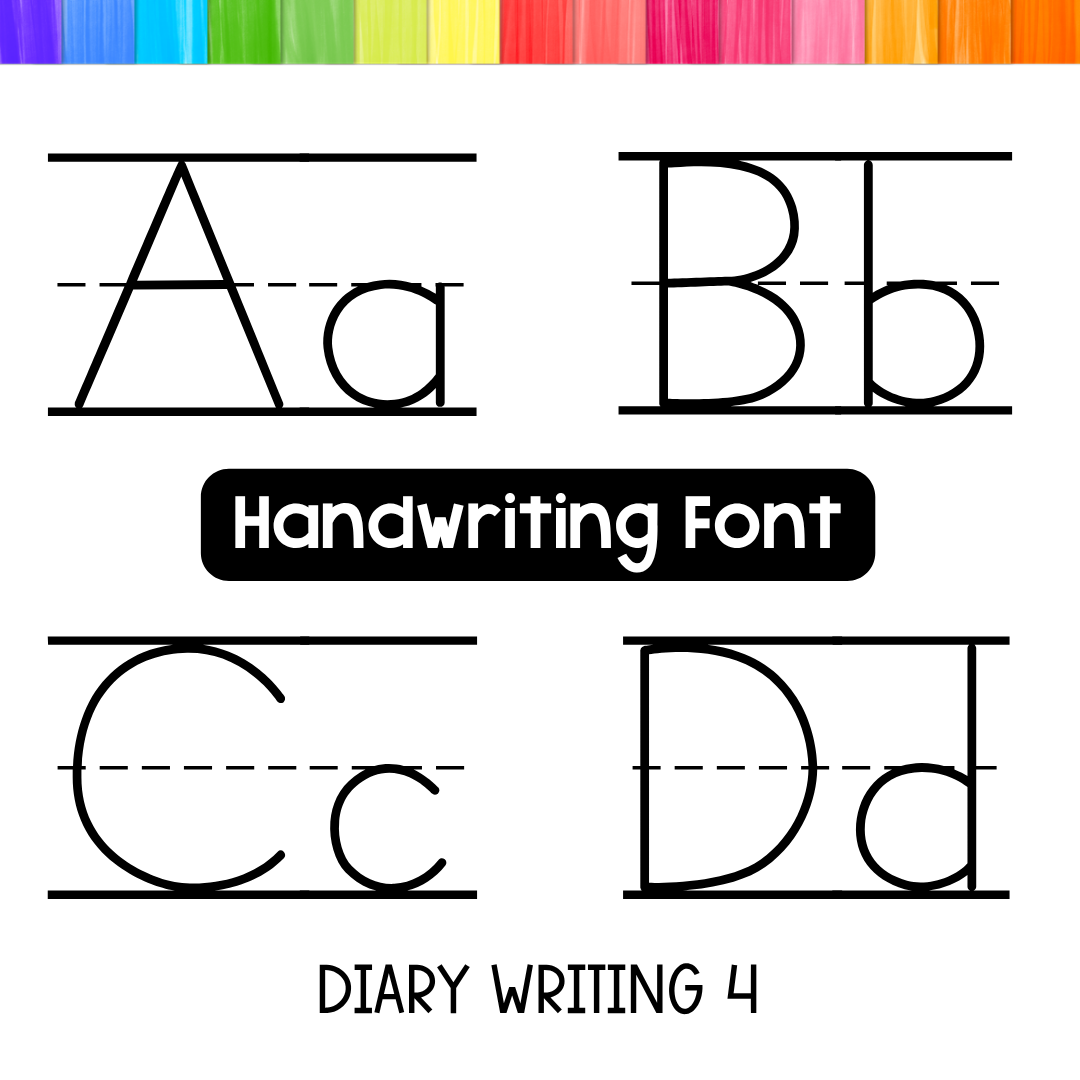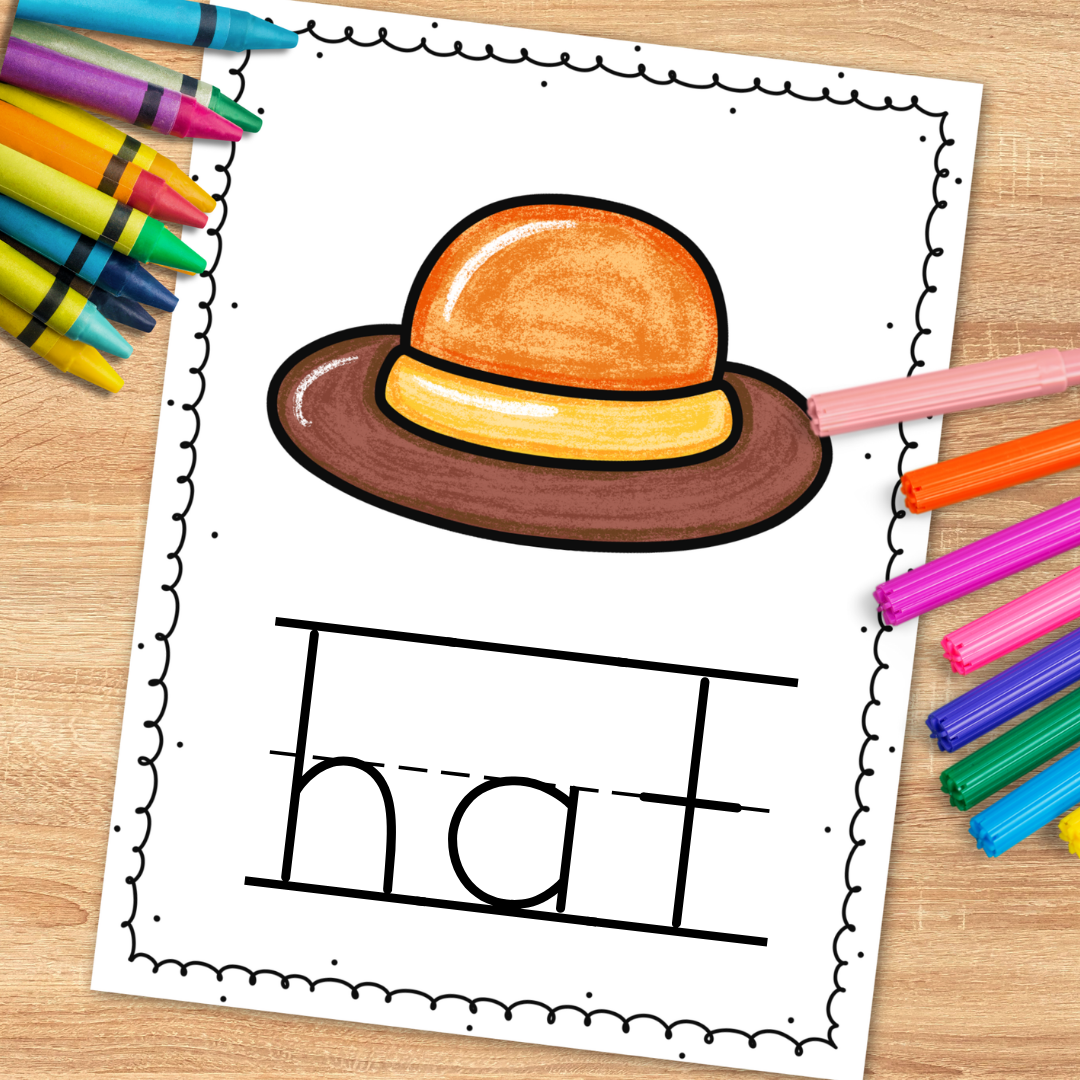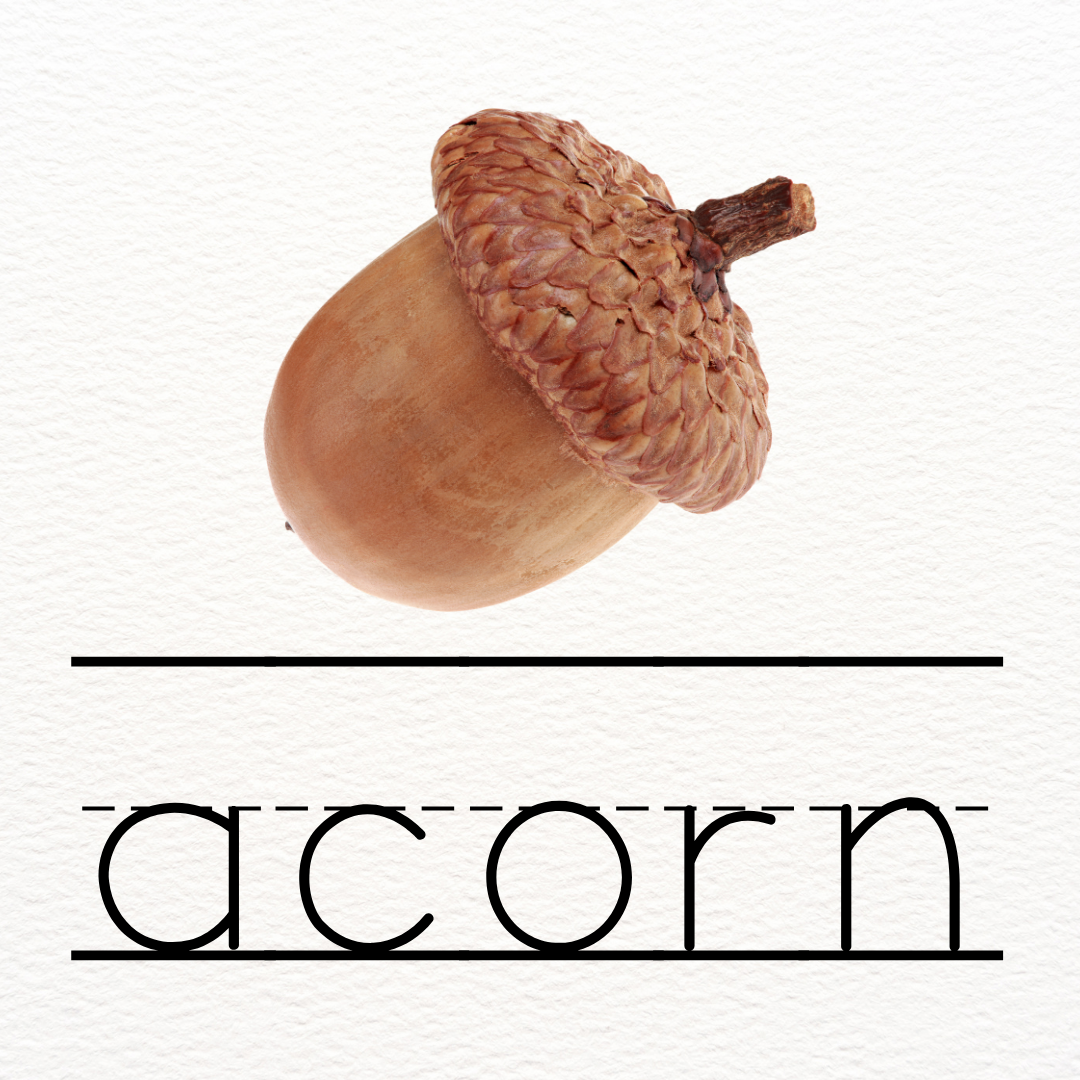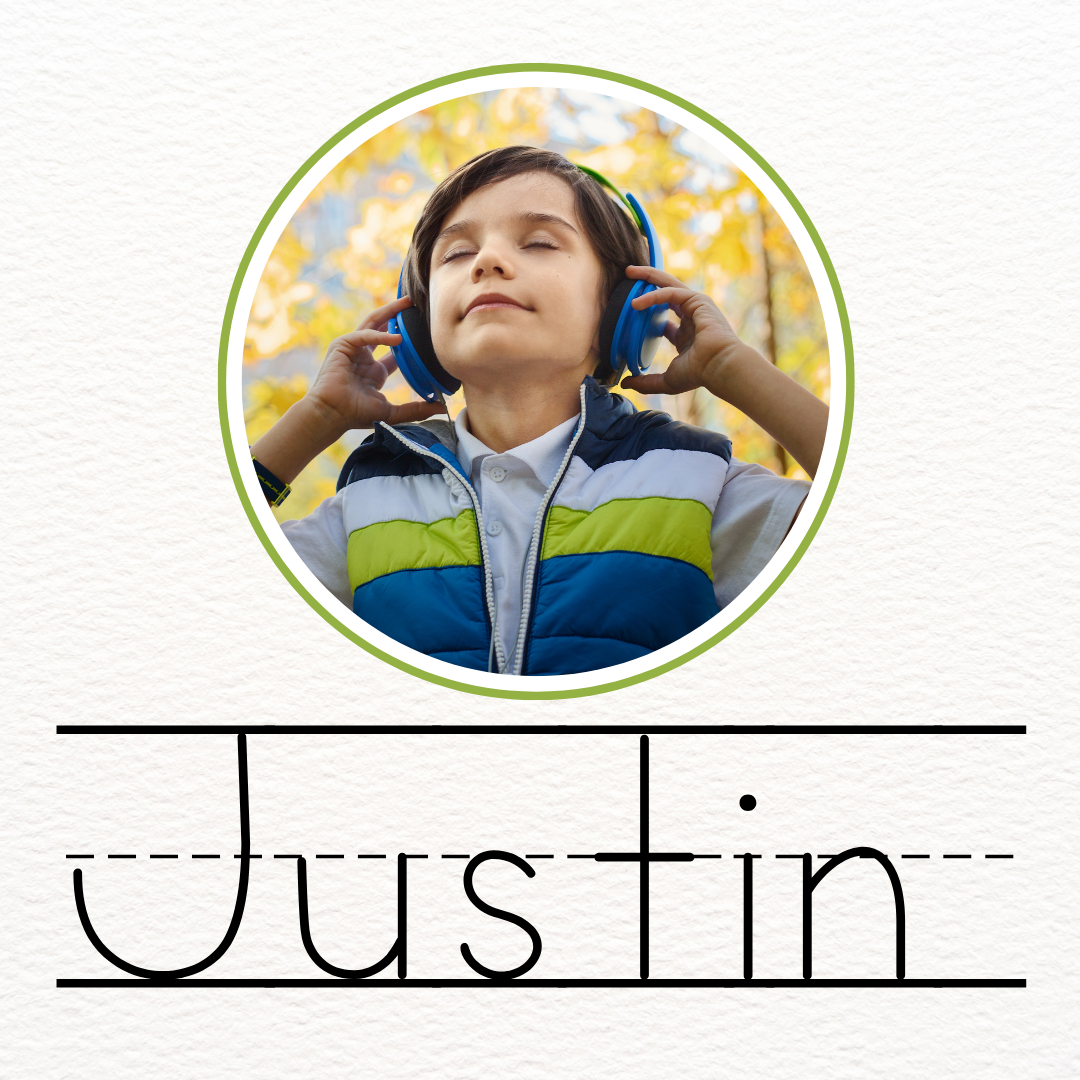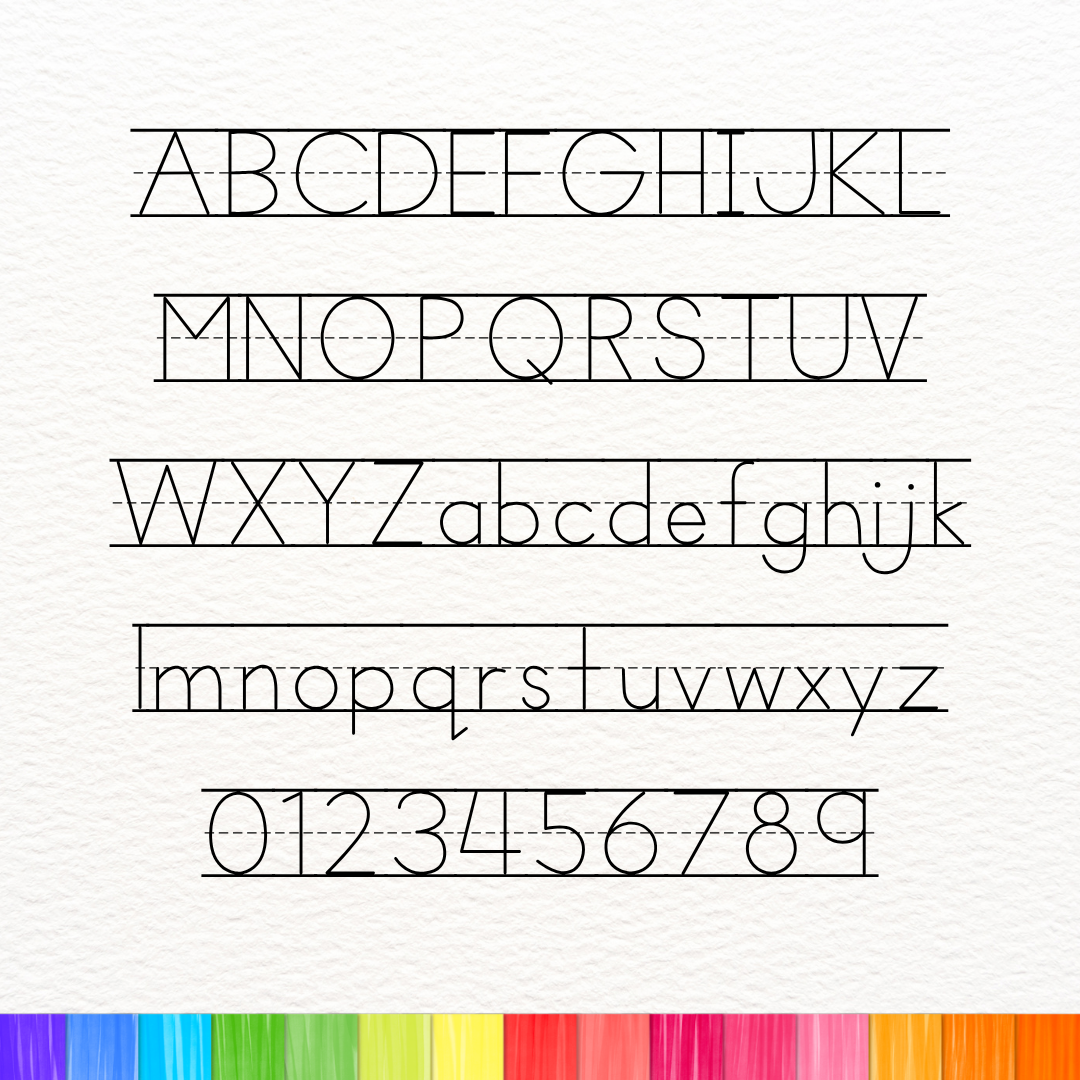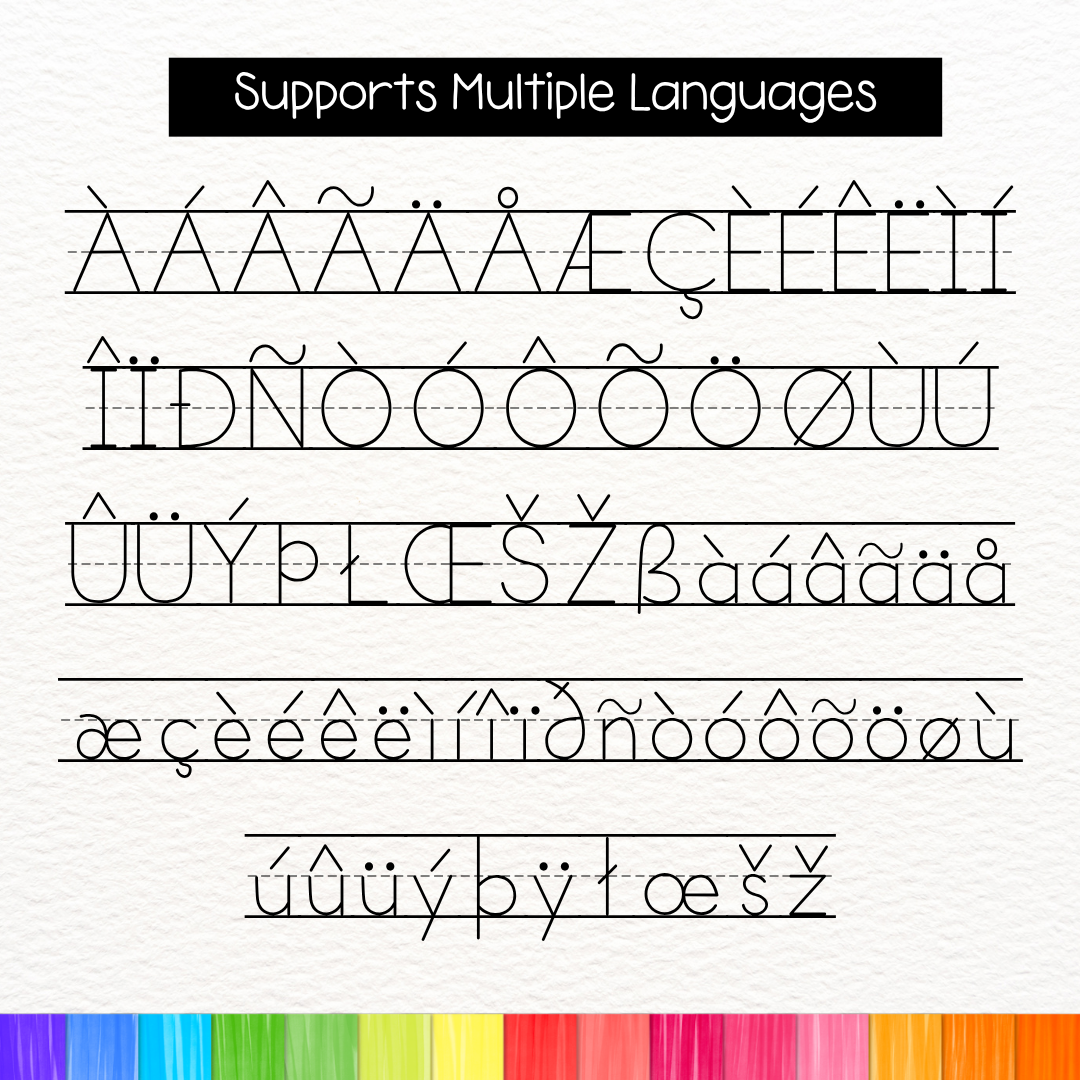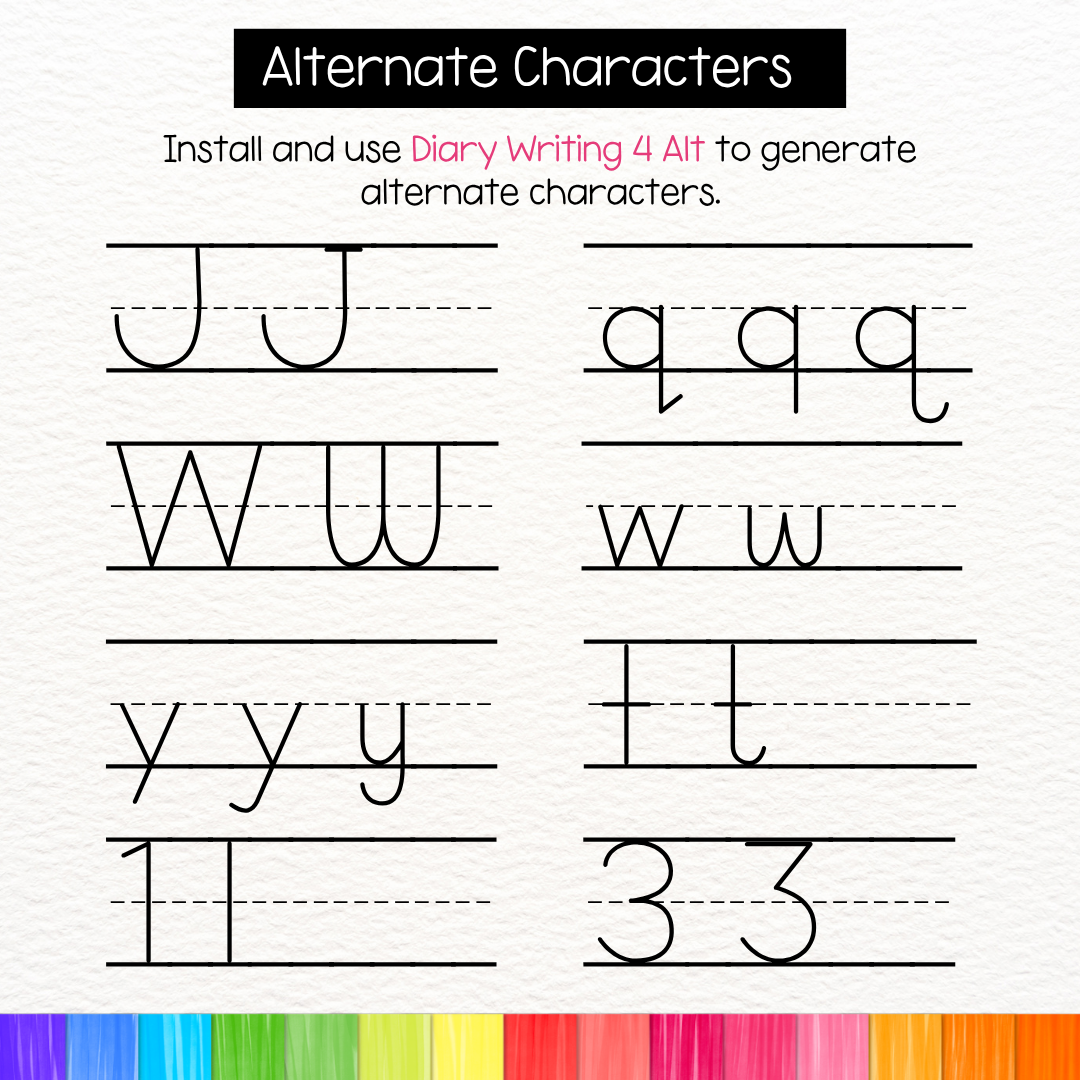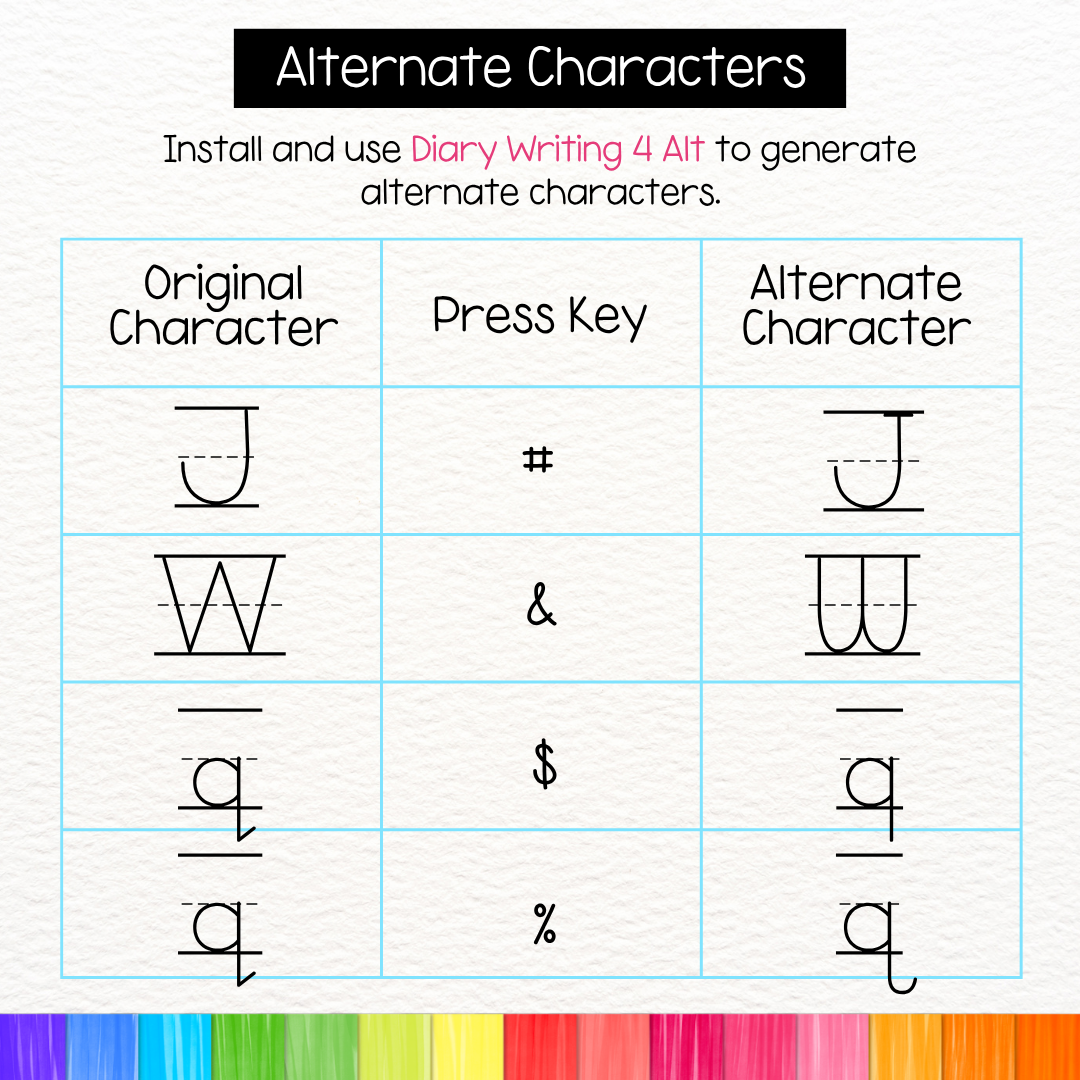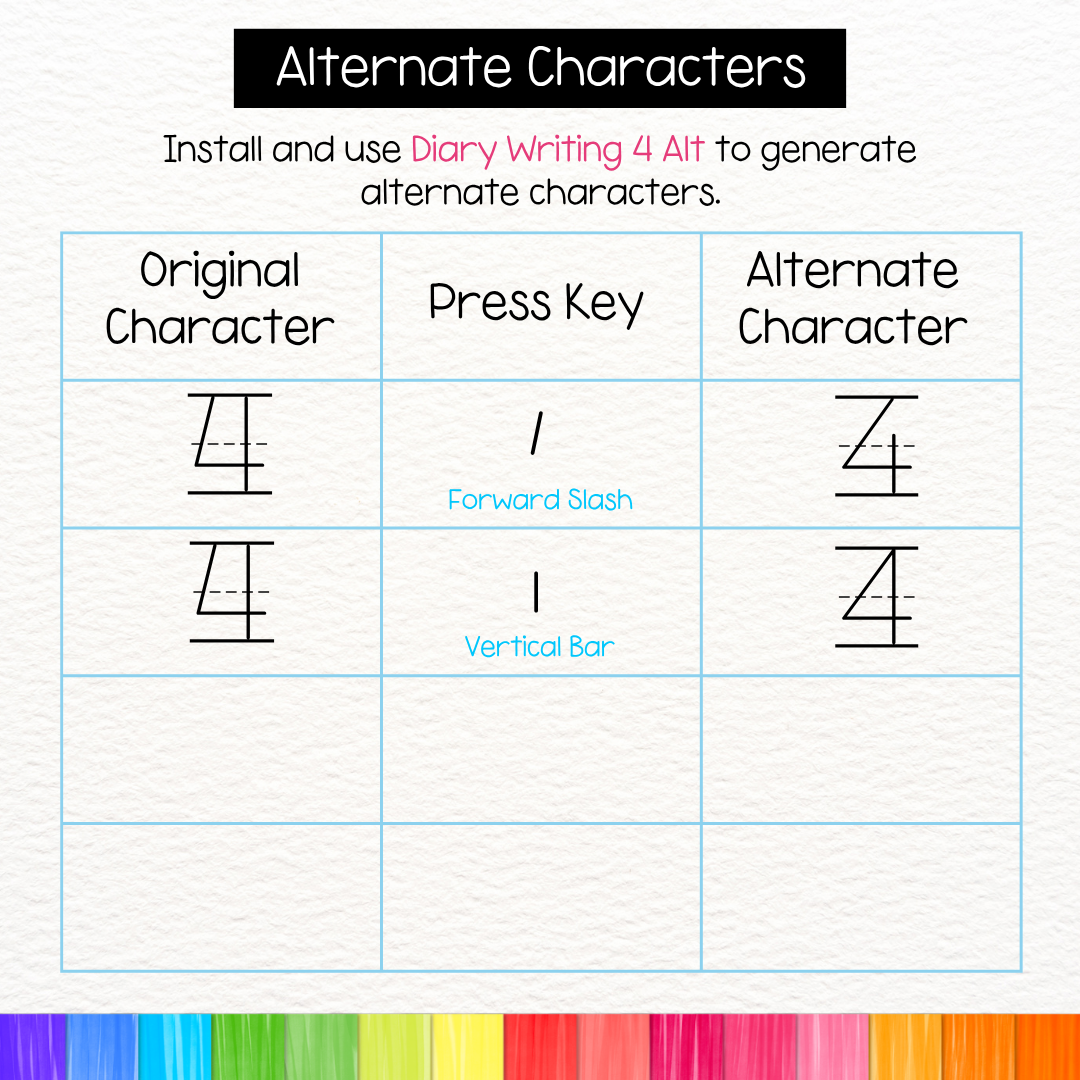
Lined ABC Alphabet Tracing Font for Handwriting Practice
This font has letters in line guides, perfect for tracing and fine motor activities. This set includes all capital letters, small letters, and numbers best for toddler tracing, name tracing, letter recognition letter tracing, and number tracing exercises worksheets.
Create fun and engaging activities for kids to trace letters with this neat handwriting font!